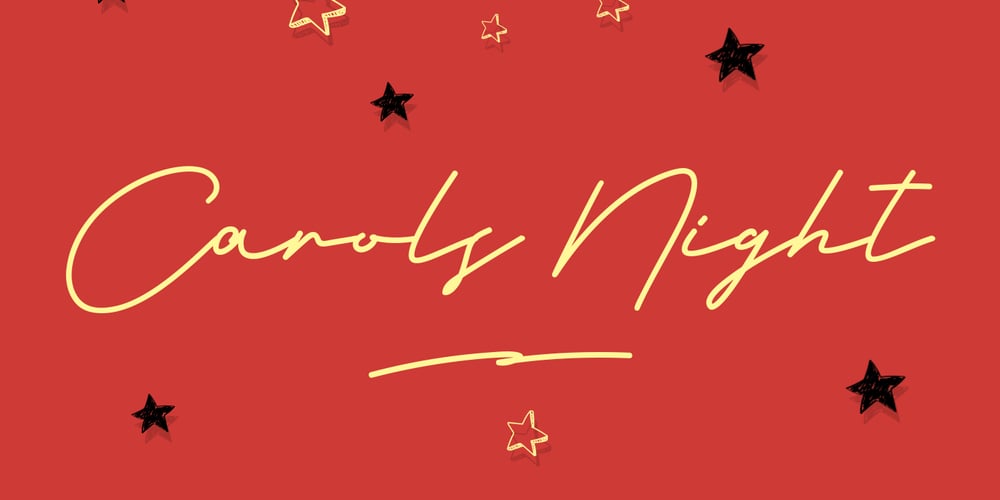
Carols Night
Carols Night font
Carols Night Font Family was designed by Gilang Maulana and published by Maulana Creative. Carols Night contains 1 styles and family package options. Give your designs an authentic handcrafted feel. �Carols Night Christmas Theme Font� is perfectly suited to stationery, logos and much more.Many Thanks!